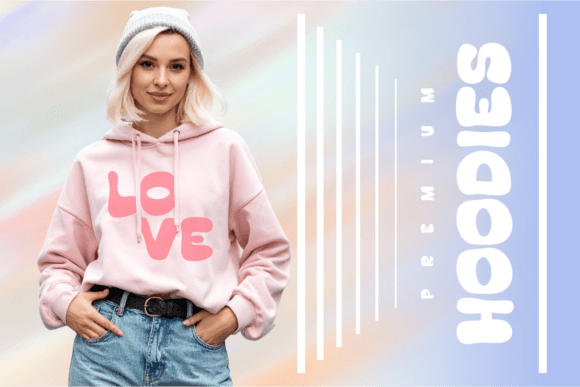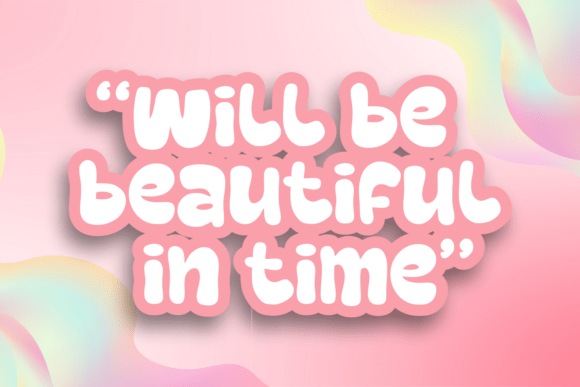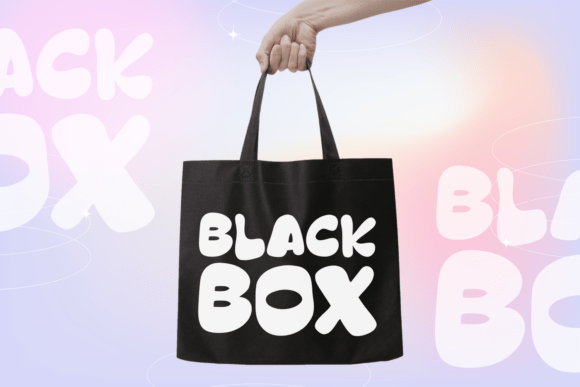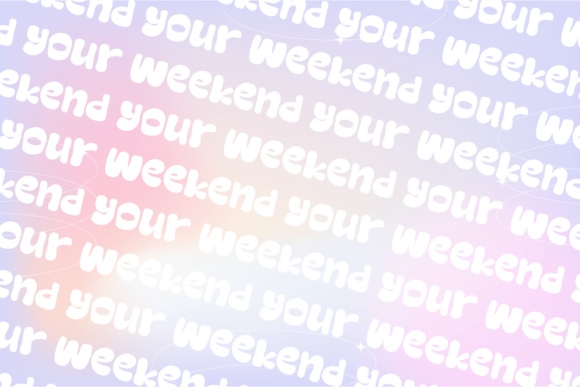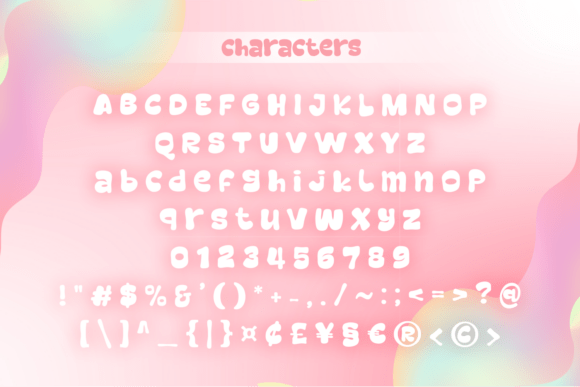
Introducing Dragon Moon Font: Add a Touch of Handcrafted Magic to Your Creative Projects
Are you looking for a font that can add a dash of whimsy and charm to your creative projects? Look no further than Dragon Moon, a playful display font designed to bring a sense of wonder and enchantment to your designs. With its soft, cloud-like contours and friendly, rhythmic silhouette, Dragon Moon is the perfect choice for designers and crafters who want to add a touch of handcrafted magic to their work.
The Characteristics of Dragon Moon Font
Dragon Moon font features massive, billowy letterforms that are characterized by their soft, rounded geometry. The font’s heavy visual weight and nostalgic, “bubble-letter” aesthetic make it perfectly suited for children’s event branding, toy packaging, nursery decor, and engaging social media headers. The font’s unique design ensures that your headlines stand out with a legendary and unforgettable personality, making it ideal for designers who want to create eye-catching and memorable designs.
Dragon Moon font is a versatile typeface that can be used in a variety of creative projects. Whether you’re designing branding materials for a children’s event, creating packaging for a toy, or crafting engaging social media headers, Dragon Moon font is the perfect choice. The font’s playful and whimsical design makes it ideal for designers and crafters who want to add a touch of personality to their work.
Key Features of Dragon Moon Font
- Playful display font with soft, cloud-like contours
- Massive, billowy letterforms with a friendly, rhythmic silhouette
- Heavy visual weight and rounded geometry for a nostalgic, “bubble-letter” aesthetic
- Perfectly suited for children’s event branding, toy packaging, nursery decor, and engaging social media headers
- Professional, human-centric warmth to ensure your headlines stand out
Benefits of Using Dragon Moon Font
There are many benefits to using Dragon Moon font in your designs. Some of the benefits include:
- Instantly add a touch of whimsy and charm to your designs
- Create eye-catching and memorable headlines that stand out
- Perfect for designers and crafters who want to add a touch of personality to their work
- Versatile typeface that can be used in a variety of creative projects
Tips and Tricks for Getting the Most Out of Dragon Moon Font
Here are some tips and tricks for getting the most out of Dragon Moon font:
- Experiment with different font sizes and styles to create unique and eye-catching designs
- Use the font in combination with other fonts to create a unique and memorable design
- Don’t be afraid to get creative and try new things – Dragon Moon font is perfect for experimenting with different design ideas
In conclusion, Dragon Moon font is a playful display font that is perfect for designers and crafters who want to add a touch of handcrafted magic to their creative projects. With its soft, cloud-like contours and friendly, rhythmic silhouette, Dragon Moon font is ideal for children’s event branding, toy packaging, nursery decor, and engaging social media headers. Whether you’re a designer or crafter, Dragon Moon font is a versatile typeface that can help you create eye-catching and memorable designs that stand out.